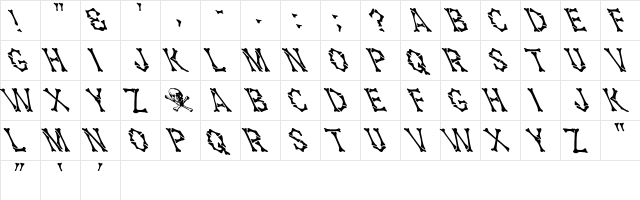
Headhunter Leftified For Death Medium
Design Context for Headhunter Leftified For Death Typeface
Headhunter Leftified For Death carries an unsettling edge — its distorted letterforms are built to unsettle, perfectly suited to horror, Halloween, and dark creative work.
Perfect for anything that needs to unsettle — game titles, horror branding, and macabre invitations.
Font Pairing: Pair with a clean neutral sans-serif for body copy to let Headhunter Leftified For Death's character lead without overwhelming the composition.
Pro Tip: Use Headhunter Leftified For Death at larger display sizes for maximum impact. Consider generous tracking to let the disturbing character of each letterform breathe.